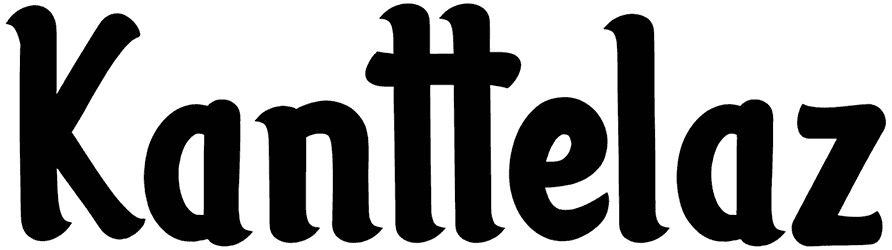
Kanttelaz Font
Kanttelaz is today’s RB proposal to designers who want to bring old energy and unique texture with a simple tool. This logo font is helpful in retro designs and is easily placed in any context. The clean appearance and c…
Kanttelaz is today’s RB proposal to designers who want to bring old energy and unique texture with a simple tool. This logo font is helpful in retro designs and is easily placed in any context.
The clean appearance and compliance with the standards are what can make your project stand out. So if you’re looking for a way to make your posters, advertisements, and street banners stand out, Kanttelaz is one of those premium fonts that will star in your collection.